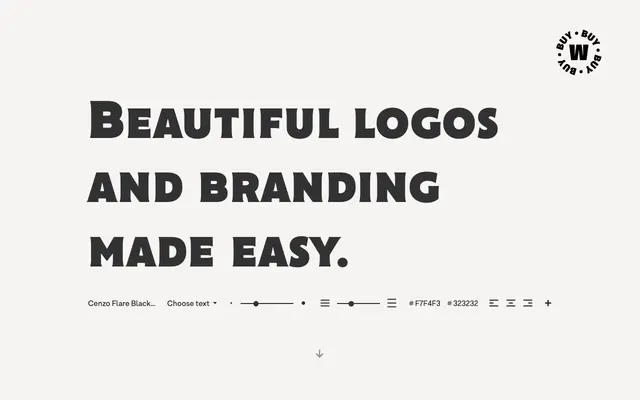
Cenzo Flare
W Type Foundry · Bana Arasanz
A 40-style display family by Bana Arasanz drawing on vintage Americana advertising and Italian poster lettering, with flared terminals and four decorative subfamilies designed for layering.
Built on a modern sans base with subtly flared terminals, the family takes its cues from old American advertising, Italian posters and mid-century signage. Four subfamilies — Regular, Inline, Line and Condensed — each run across five weights with matching italics, allowing the decorative variants to be stacked as colour layers for poster and branding work. OpenType alternates and extended language support broaden its range beyond headline use.
A modern sans serif with flared terminals drawn from Americana advertising and vintage poster lettering, placing it firmly in the display category with a retro-inflected flared sans subcategory.